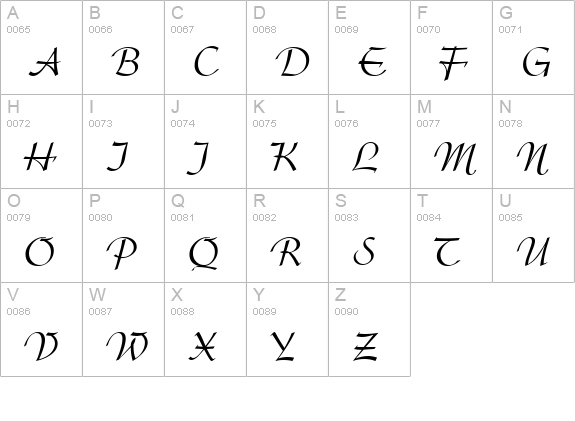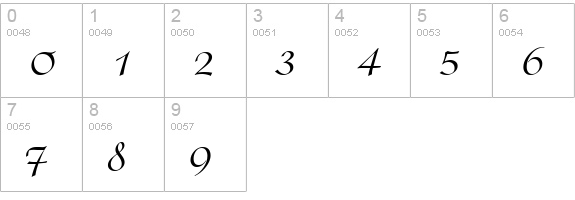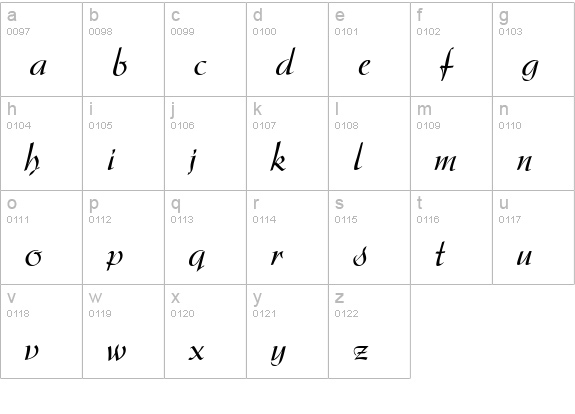
Argentine-Regular Font Details
Argentine-Regular is the standard, neutral variant in the Argentine typeface family \xE2\x80\x94 well suited to general body text, paragraphs, and standard typographic work.
The Argentine-Regular font exudes elegance and sophistication with its sleek lines and timeless appeal. This versatile typeface is perfect for a wide range of design projects, from branding to editorial layouts. Its clean and modern aesthetic makes it a popular choice for designers looking to add a touch of refinement to their creations. Best of all, the Argentine-Regular font is available for free download at FontsMarket.com! This means you can easily access this stylish font and incorporate it into your projects without any cost. Whether you're working on a website, print materials, or any other design project, the Argentine-Regular font is sure to elevate your work to the next level. Download it today and unleash your creativity with this stunning typeface!